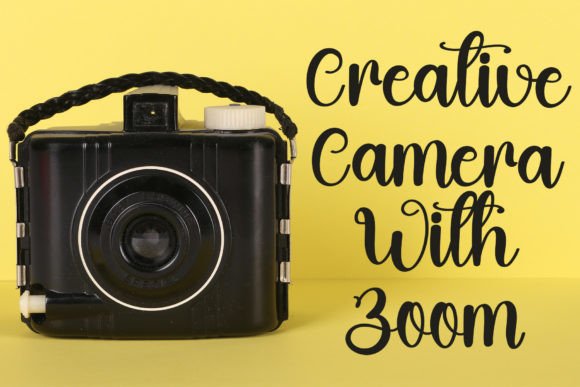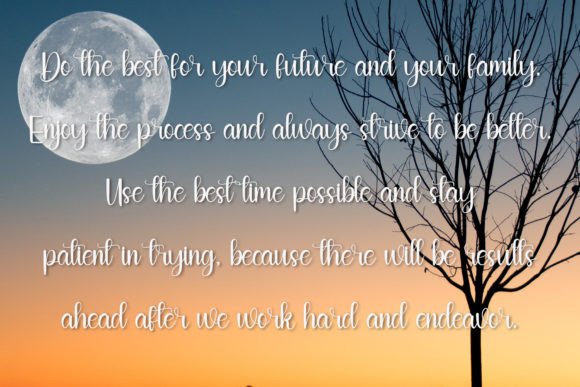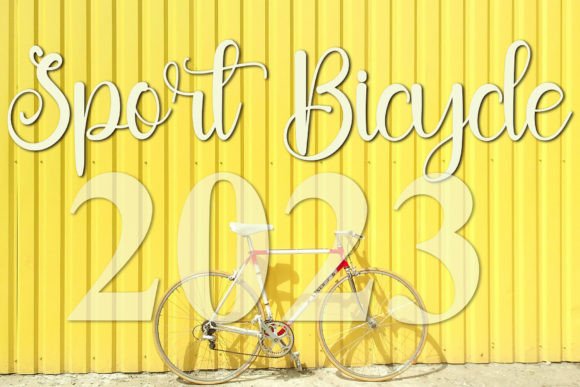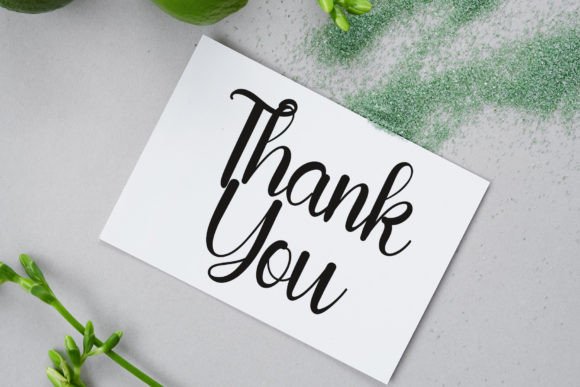
The Perfect Blend of Classic and Modern: Introducing Brightoon Font
Have you ever been working on a project, pouring your heart and soul into it, only to feel like something’s missing? That’s when I stumbled upon the perfect solution – a font that can elevate your design game and make your projects shine. I was on the hunt for a font that exuded elegance and sophistication, yet still had a touch of modern flair. And then, I found it – Brightoon Font, a stunning handwritten font that’s about to become your new best friend.
Brightoon Font is more than just a pretty face; it’s a carefully crafted tool designed to bring your projects to life. With its spotless form and balanced, varied strokes, this font is perfect for designers looking to add a touch of whimsy and personality to their work. Whether you’re a seasoned pro or just starting out, Brightoon Font is an invaluable addition to your design toolkit.
Brightoon Font Key Features
- Unique Characteristics: Brightoon Font features a unique blend of modern and elegant design elements, with subtle flair and sophistication, making it ideal for creative and professional applications.
Brightoon Font Review
Overall, I have mixed feelings about the Brightoon Font. It’s a unique and eye-catching font, and I appreciate its creative approach to typography.
- ✨ Unique aesthetic: Brightoon Font has a distinctive and quirky style that sets it apart from other fonts.
- ✨ Good for creative projects: This font is perfect for designers who want to add a touch of whimsy and personality to their projects.
- ✨ Wide range of styles: The font family includes various styles, from bold and playful to elegant and sophisticated.
- ⚠️ Limited legibility: In certain contexts, the font’s unique style can make it difficult to read, especially for long blocks of text.
- ⚠️ Limited font sizes: The font may not scale well to smaller font sizes, which can lead to pixelation and loss of detail.
- ⚠️ Limited language support: The font may not support certain languages or character sets, which can limit its usability.
The Brightoon Font is a creative and eye-catching font that can add a unique touch to your designs. However, its limitations in legibility, font sizes, and language support may make it less suitable for certain projects. I would recommend this font for creative projects where its unique style can shine, but it may not be the best choice for more formal or complex projects.
Getting the Most Out of Brightoon Font
To get the most out of the Brightoon font, use it for headings and titles to create a bold and eye-catching visual effect. Use it in conjunction with a clean and simple font for body text to create a visually appealing contrast.
The Brightoon font is ideal for use in creative and design-related projects, such as:
– Brochures and flyers
– Business cards and letterheads